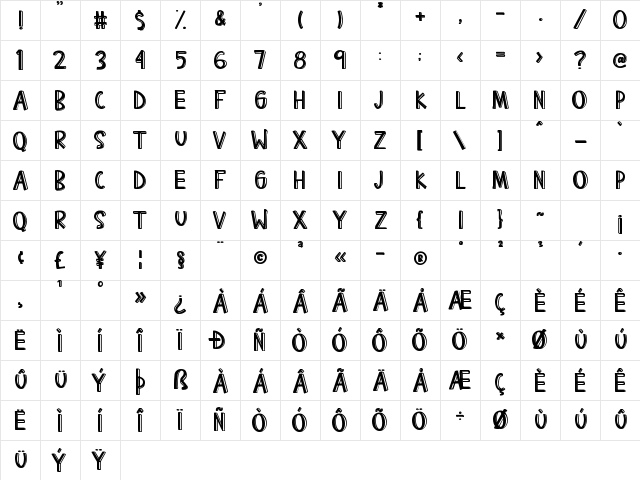
Complete Kidz Block Regular glyph index. Displaying only characters natively supported by Kidz Block Regular font.
Kidz Block is a composed and adaptable typeface that performs quietly and consistently across a wide range of design contexts.